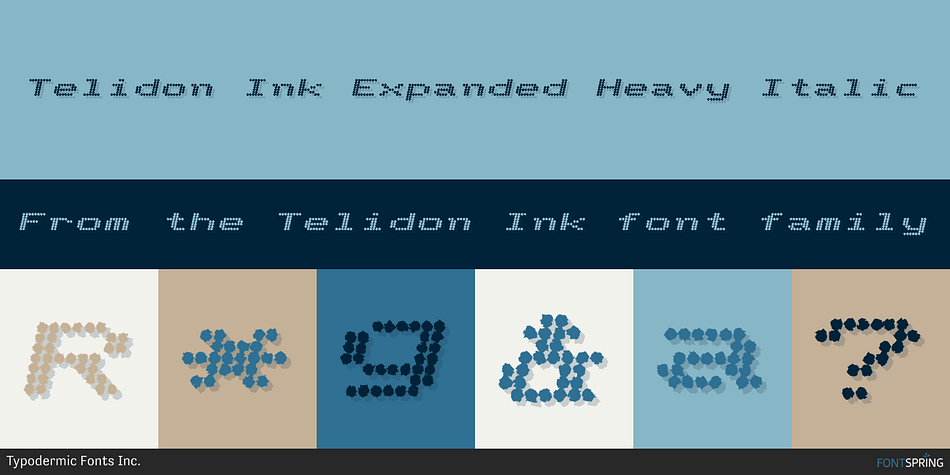
Telidon Ink Expanded Heavy Italic
Telidon Ink is a typewriter font family. This typeface has eighteen styles and was published by Typodermic Fonts Inc.
Introducing Telidon Ink, the dot-matrix typeface that takes you back in time to the glory days of retro computing. With its upright and legible structure, Telidon Ink boasts a distinctive textured ink impression that will transport you back to the age of the dot-matrix printer.
Not only does Telidon Ink look retro, but it also has a fast and easy vibe that adds a sense of momentum to your phrases. And with its versatile range of widths, weights, and italics, you have the flexibility to create a unique and dynamic look for your designs.
But that’s not all—Telidon Ink also has a clean and straight-laced companion, Telidon, which complements its retro style perfectly. Together, these typefaces will give your designs a classic and timeless look that is sure to impress.
So if you’re looking to add a touch of vintage charm to your graphic design projects, Telidon Ink is the perfect choice. Let it transport you back in time to the golden age of computing and bring a touch of nostalgia to your designs.